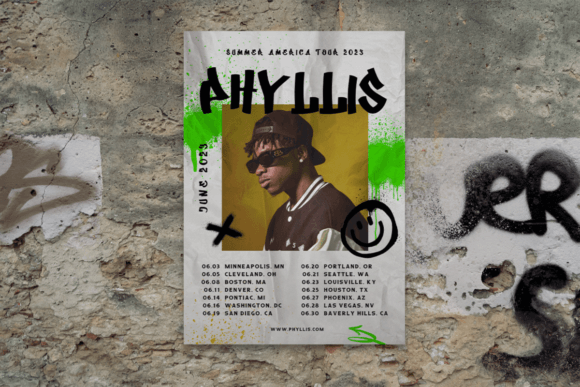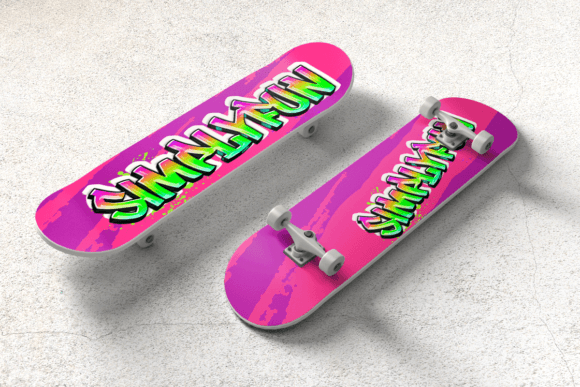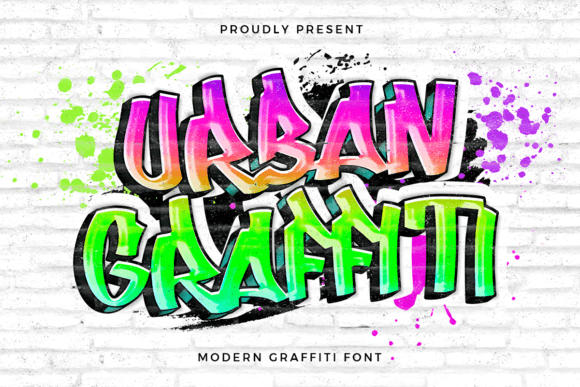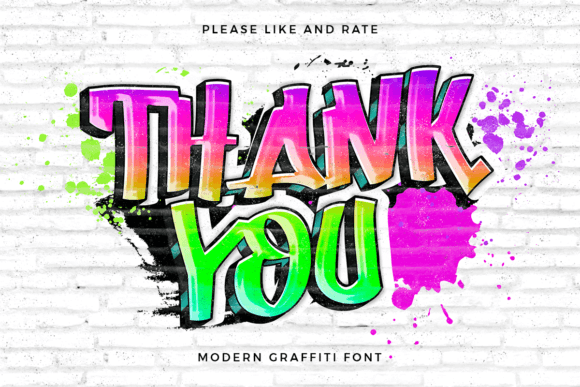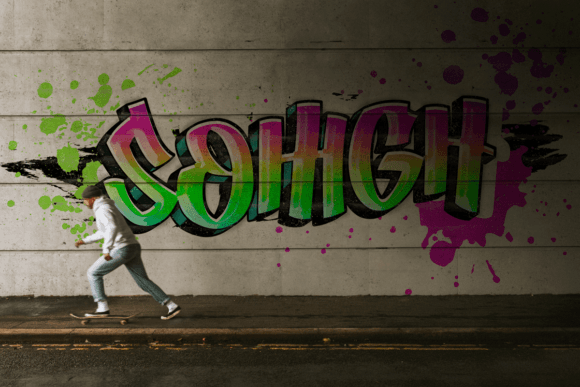
Urban Graffiti Font
Urban Graffiti is a bold and expressive graffiti font that captures the raw energy and creativity of street art. Perfect for urban-themed projects, this font brings a gritty, rebellious vibe to your designs with its edgy letterforms and dynamic style. Whether you’re creating posters, album covers, apparel, or social media graphics, Urban Graffiti adds a powerful visual impact that resonates with the culture and attitude of the streets. Ideal for designers looking to make a statement, this font is your go-to choice for projects that need an authentic, street-smart aesthetic.